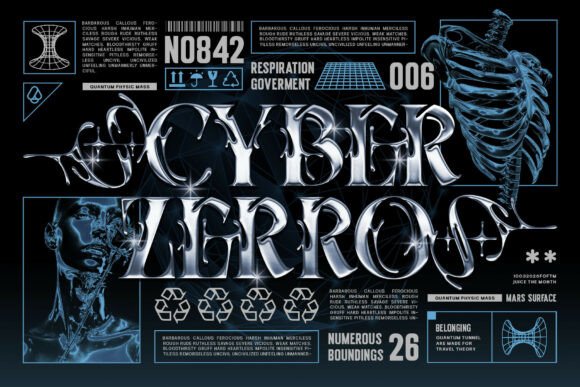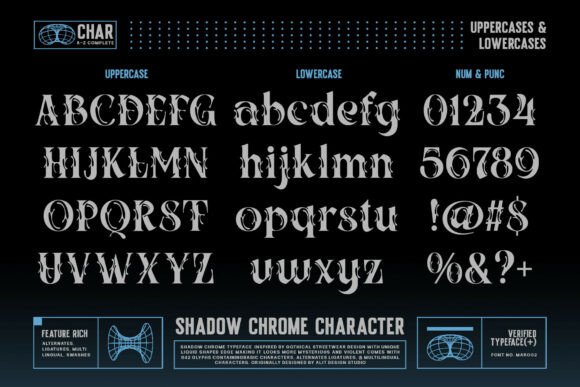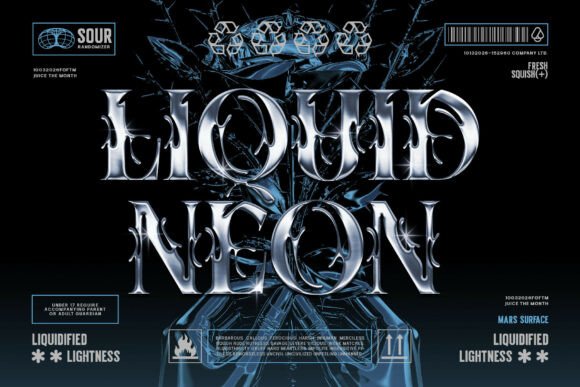
Introduction to Shadow Chrome Font Font
Fonts play a crucial role in design, and the Shadow Chrome Font font is a typeface that brings both character and versatility to any project. Whether you’re working on a branding project, a website, or a print design, the Shadow Chrome Font font offers a unique style that can elevate your work.
Unleash a bold fusion of tradition and tomorrow with Shadow Chrome, a high-octane “Futuristic Gothic” font designed for those who want to dominate the visual landscape.
Inspired by the raw energy of gothic streetwear and modern Y2K “cyber-glitch” aesthetics, Shadow Chrome features a unique liquid-shaped edge that gives it a mysterious, sharp, and high-end metallic feel With its aggressive yet sophisticated silhouette, this typeface is the ultimate weapon for designers working on streetwear brands, music posters, futuristic gaming interfaces, and edgy editorial layouts.
The Shadow Chrome Font font is more than just a typeface – it’s a design tool that helps you communicate your message with style and clarity. Its unique character set and versatile design make it suitable for a wide range of applications, from elegant invitations to bold headlines.
With its carefully crafted letterforms and balanced proportions, the Shadow Chrome Font font ensures readability and visual appeal across all mediums.
What makes Shadow Chrome Font font special?
The Shadow Chrome Font font stands out with its unique design, exceptional readability, and versatility across various design applications.